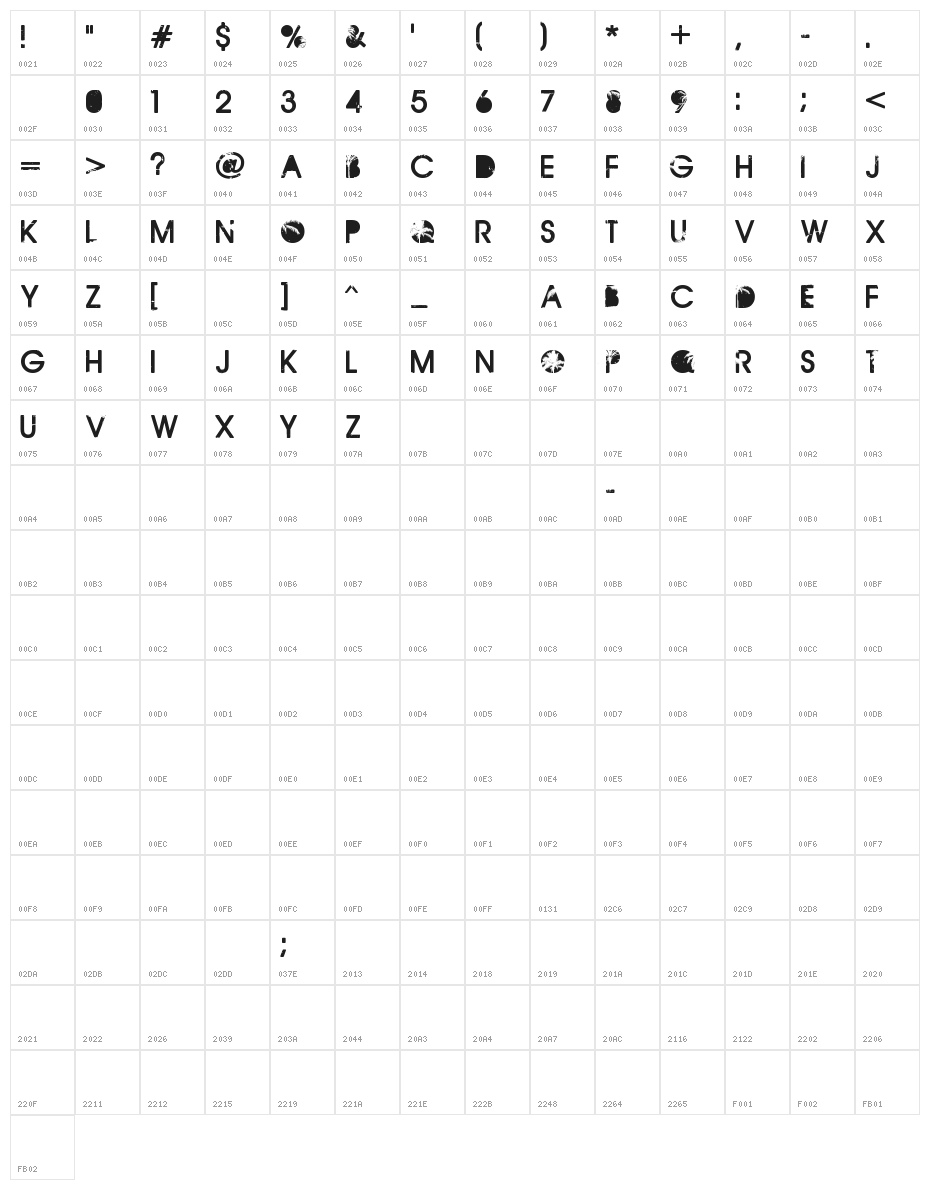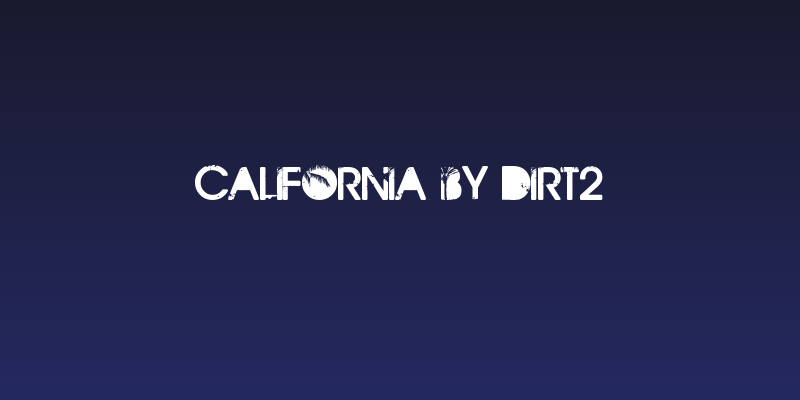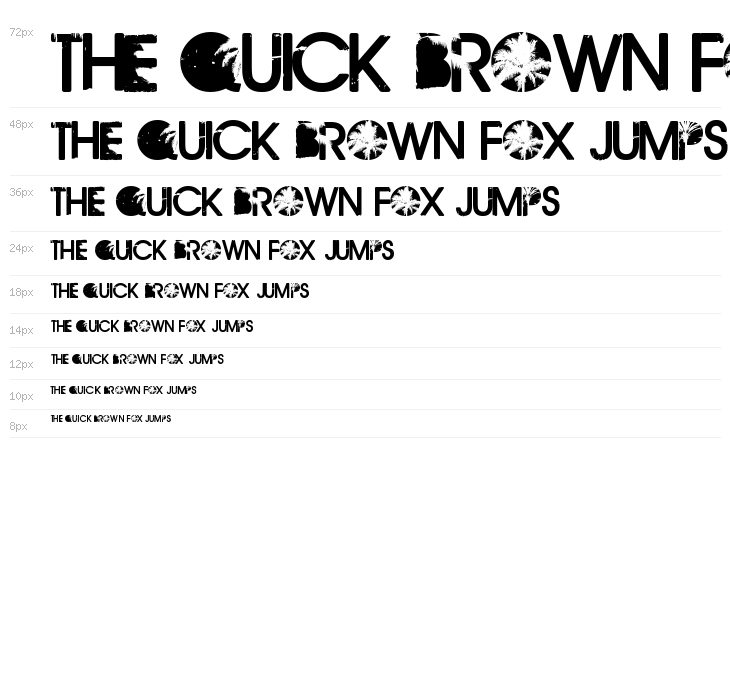
California by Dirt2 Font
California by Dirt2 Description
This font features a bold, distressed style with a unique texture that incorporates a weathered, grunge effect. The characters are uppercase and lowercase with a consistent thickness, yet each letter is uniquely distressed, giving it a rugged, worn appearance. The font includes numbers and a variety of special characters, all maintaining the same distressed aesthetic. The design is reminiscent of urban street art or vintage signage, making it stand out with its bold and edgy look. The texture within each character adds depth and character, making it ideal for projects that require a strong visual impact.
| Overall Style | Grunge, Urban, Vintage |
| Proposed Projects | Perfect for posters, album covers, branding for edgy or alternative products, and any design needing a bold, gritty aesthetic. |